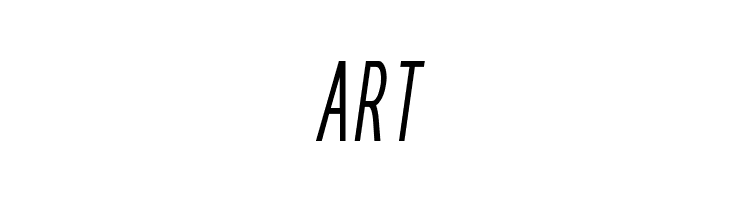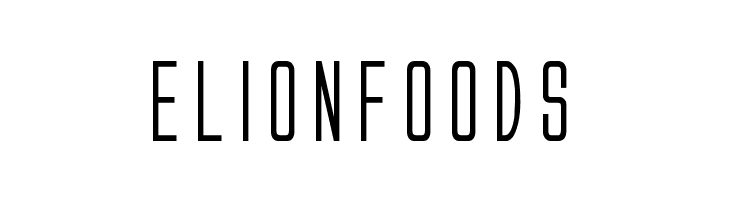
• Alien League Bold
A futuristic, geometric font with tall, narrow letterforms and consistent stroke width.
• Alien League Bold Italic
A bold, italic, futuristic font with a dynamic and sleek design.
• Alien League Gradient Bold
A futuristic, bold font with a gradient effect created by horizontal lines.
• Alien League II Bold
A futuristic, geometric font with tall, narrow characters and consistent stroke width.
• Alien League II Bold Italic
A bold, italic, and futuristic font with elongated, condensed characters and high contrast.
• Alien League II Gradient Bold
A bold, futuristic font with a gradient line effect, perfect for tech-themed designs.
• Aliens & cows Bold
A bold, condensed font with geometric letterforms and uniform stroke width.
• Aliey PERSONAL USE ONLY Bold
A bold, striking font with thick strokes and unique character flair.
• Aliey PERSONAL USE ONLY Bold Italic
A bold, italicized font with high contrast and dynamic slanted letterforms.
• Aliey PERSONAL USE ONLY Regular
A bold, modern font with unique geometric elements and strong character presence.